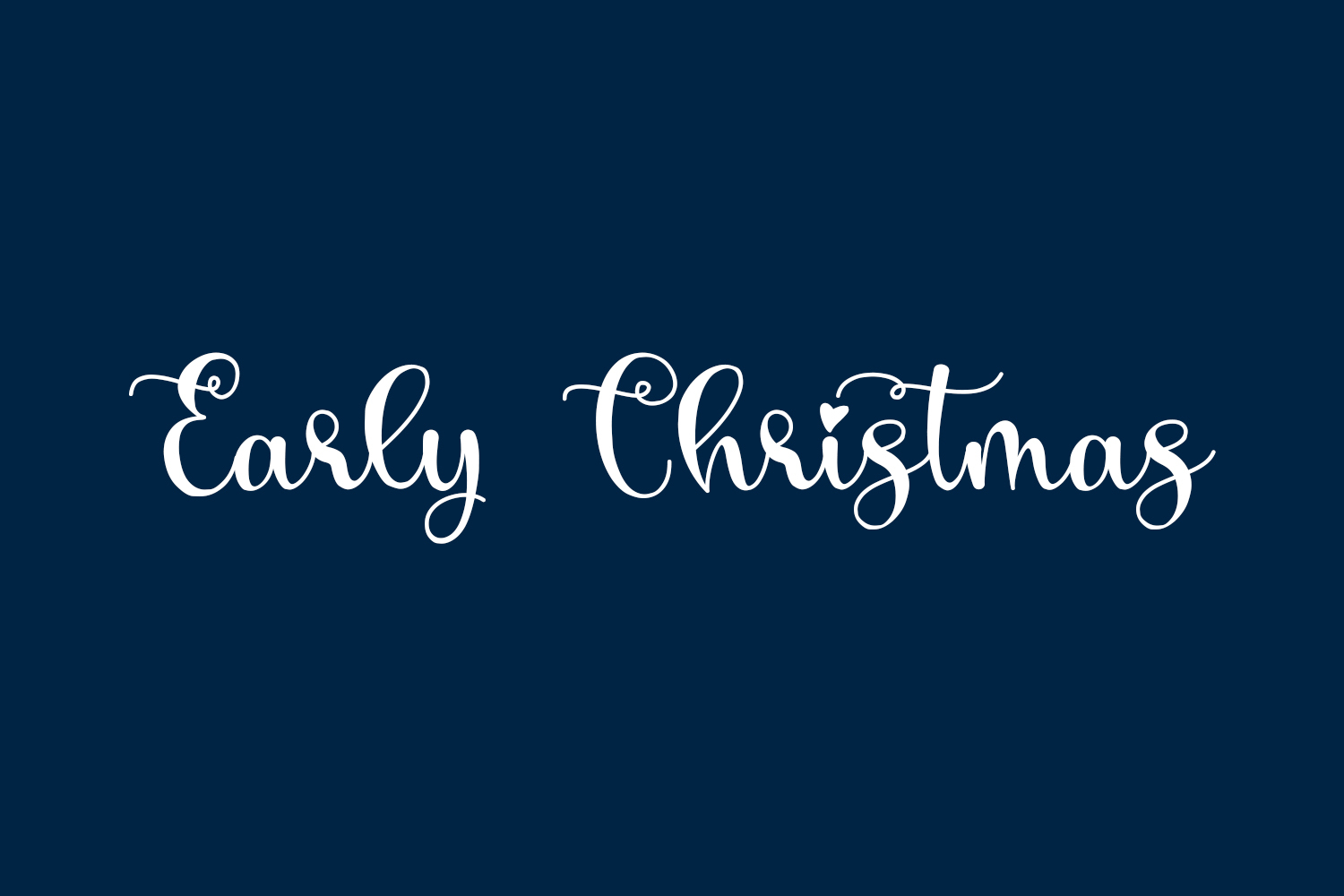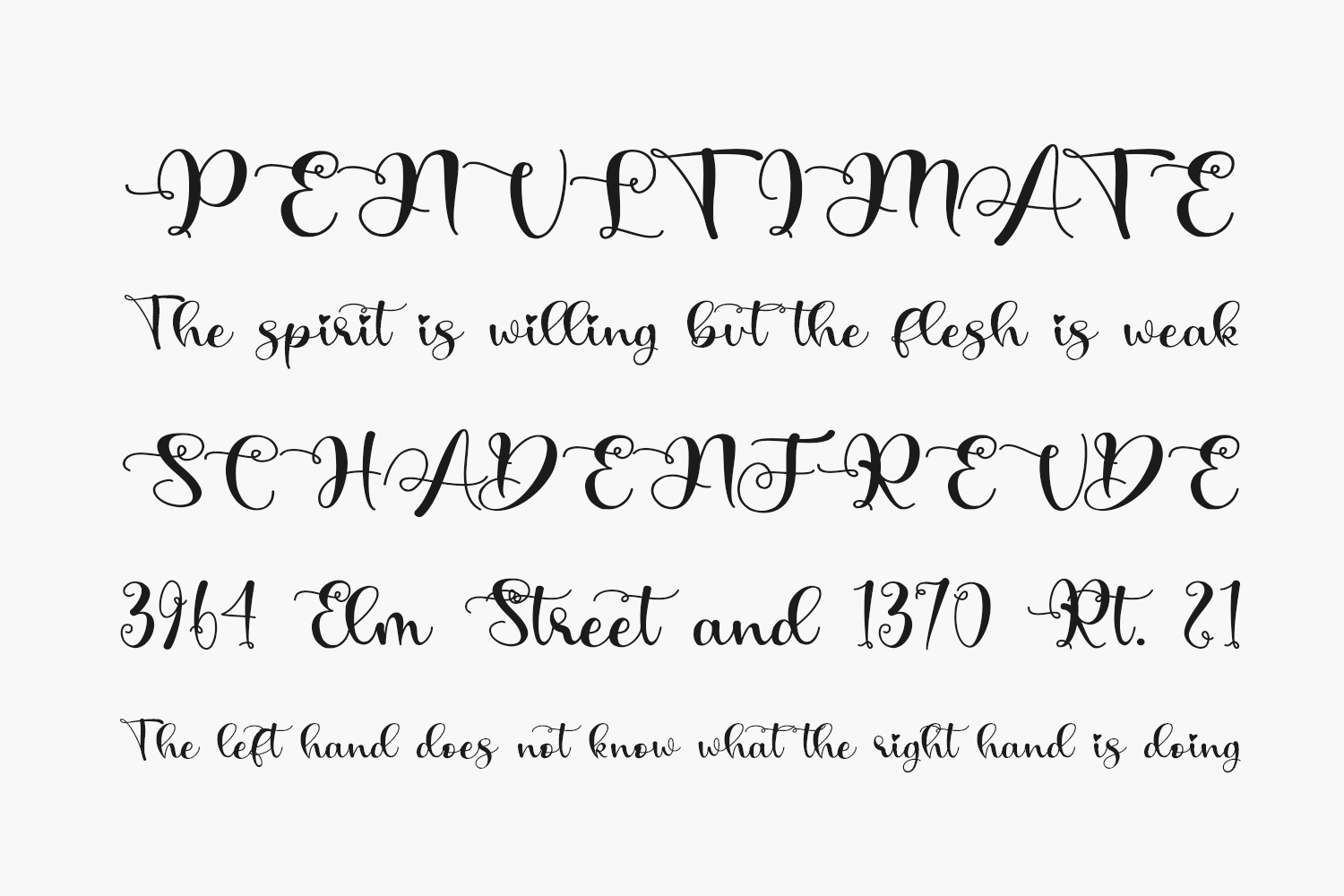
Early Christmas Free Font is a lovely script font featuring charming, playful characters that seem to dance along the baseline. Early Christmas Free Font was designed by Letterafa Studio and is free for personal use only. Please purchase the full version for commercial use.